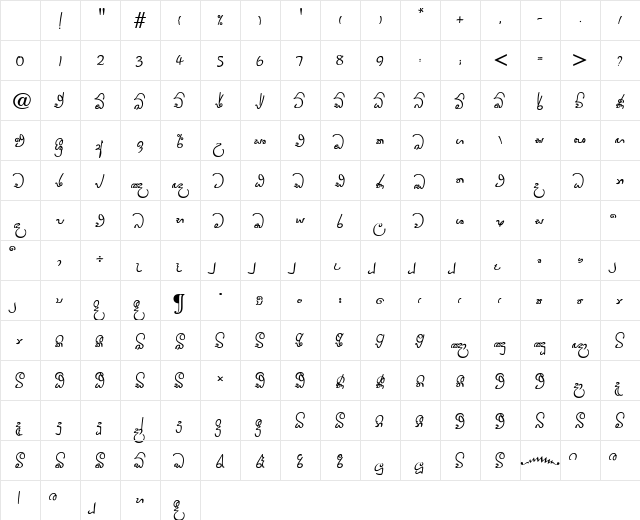
Complete IsiDisapamok x glyph index. Displaying only characters natively supported by IsiDisapamok x font.
IsiDisapamok is a composed and adaptable typeface that performs quietly and consistently across a wide range of design contexts.